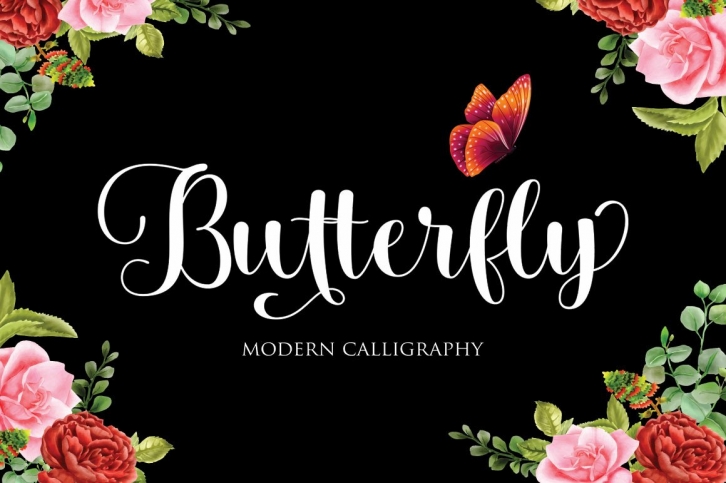
Butterfly is a gorgeous font that was realeased on October 18, 2022. The font can be used in many style contexts and design environments. Perfect for invitations, magazines, websites, logos, and more! It was designed by adi foundry and the file size is 10.13 MB. Thanks for checking out this font!